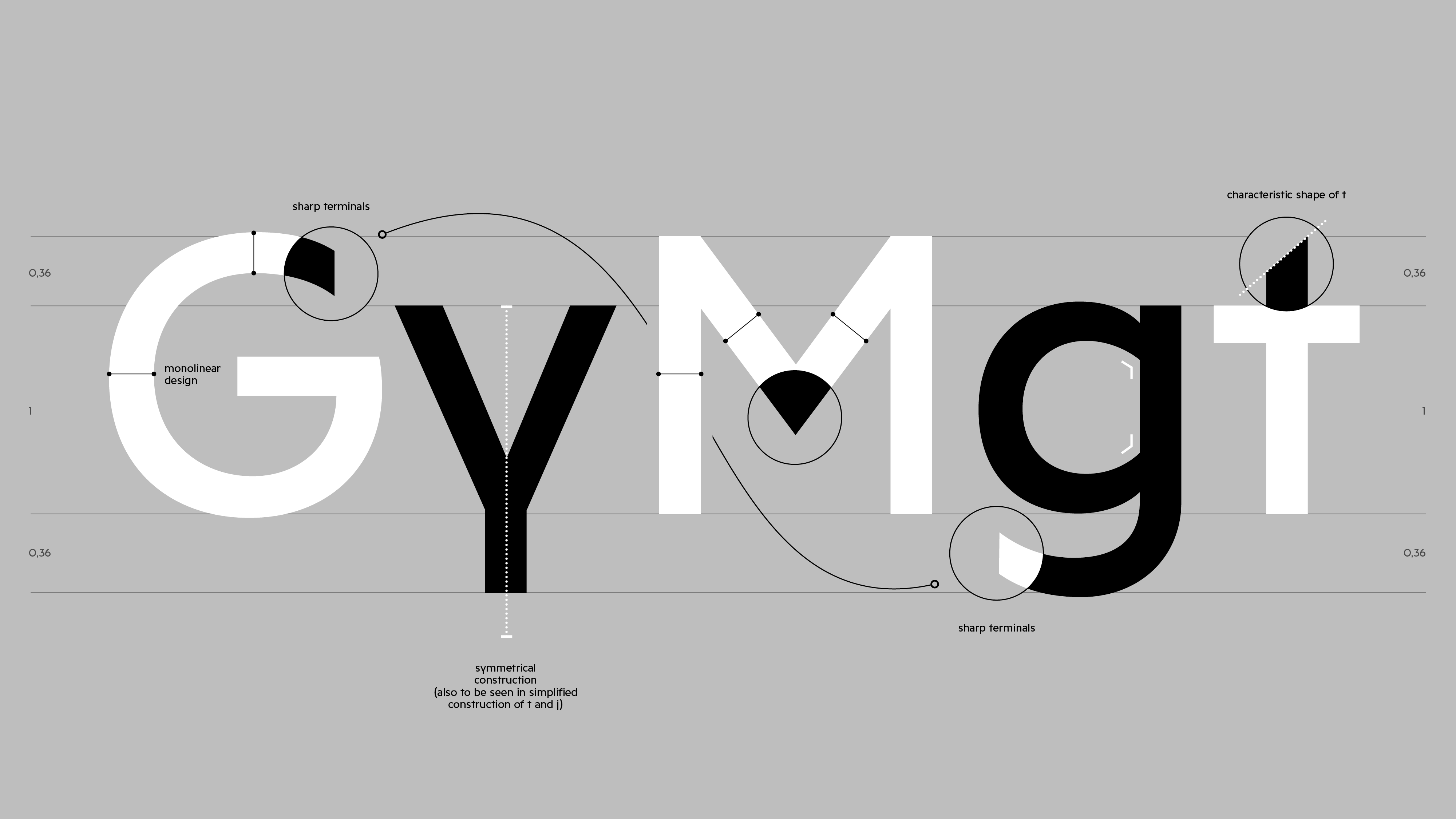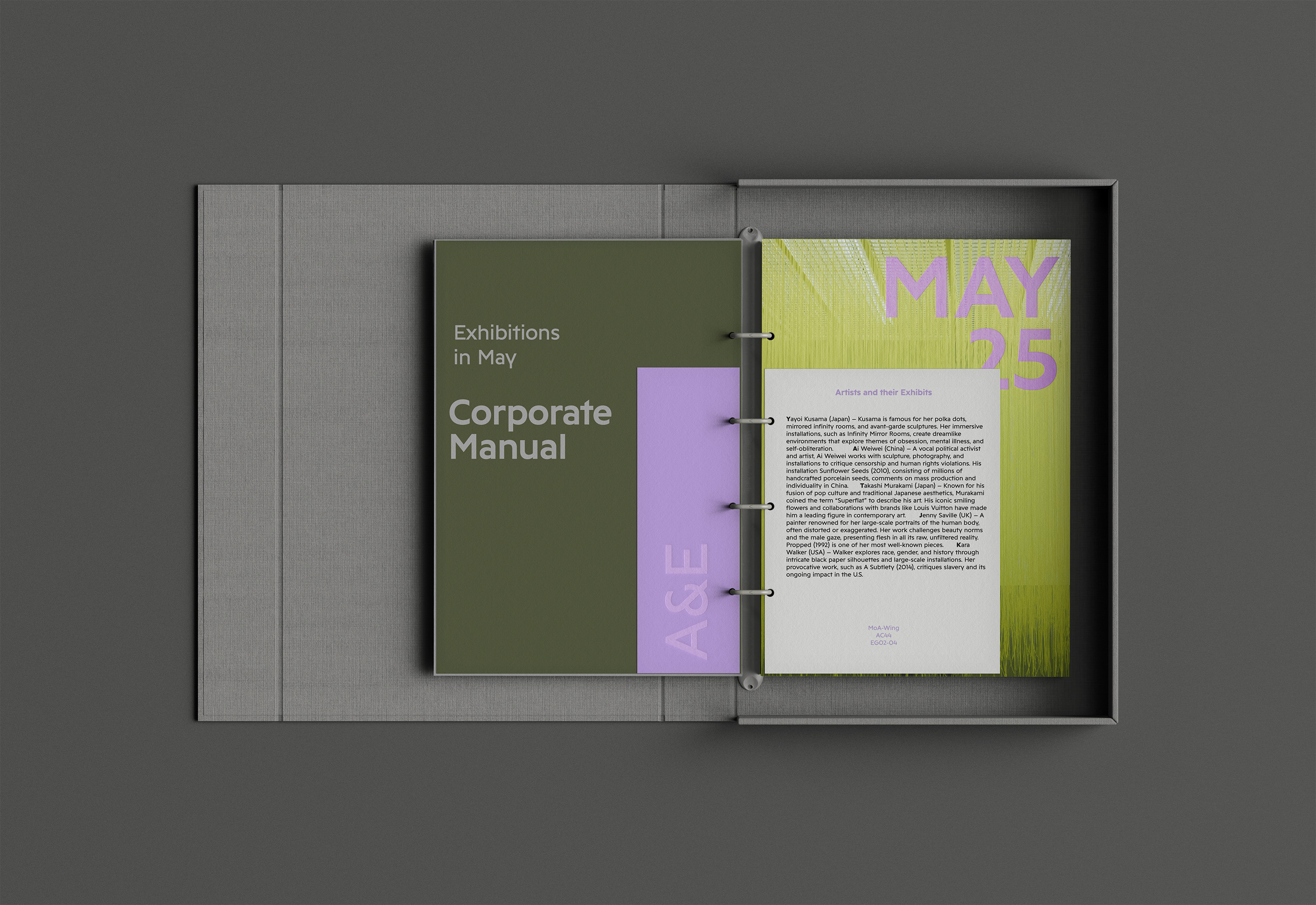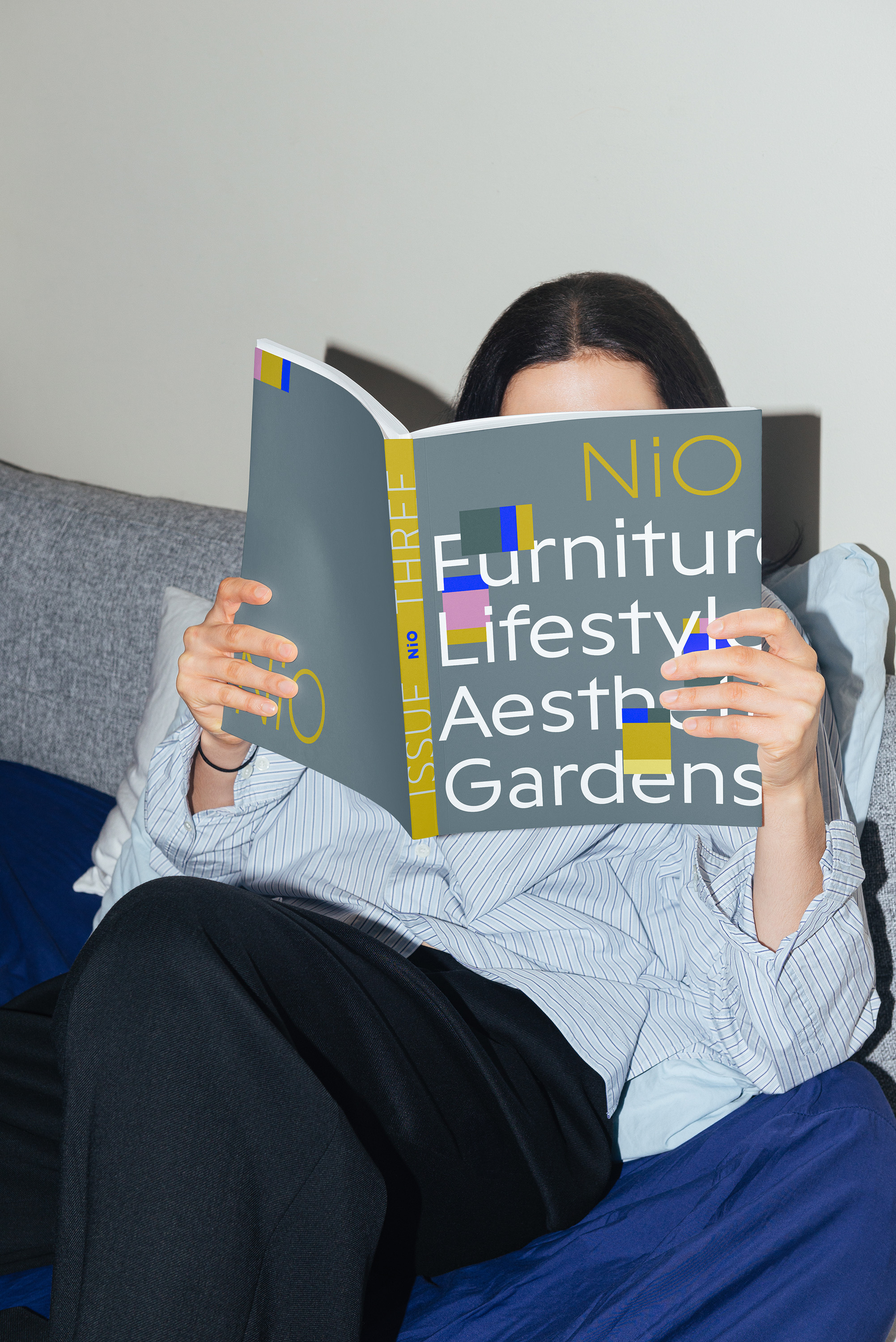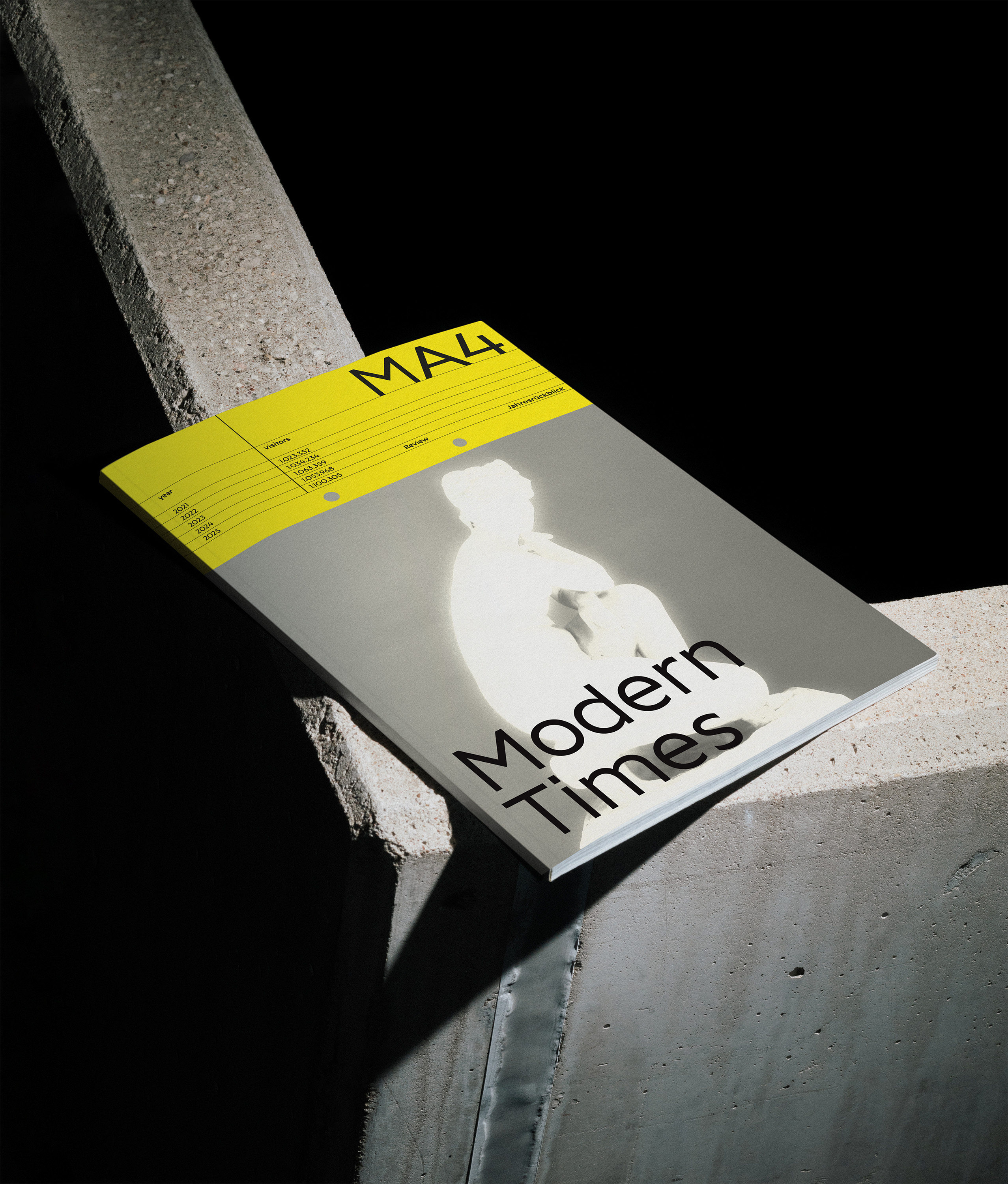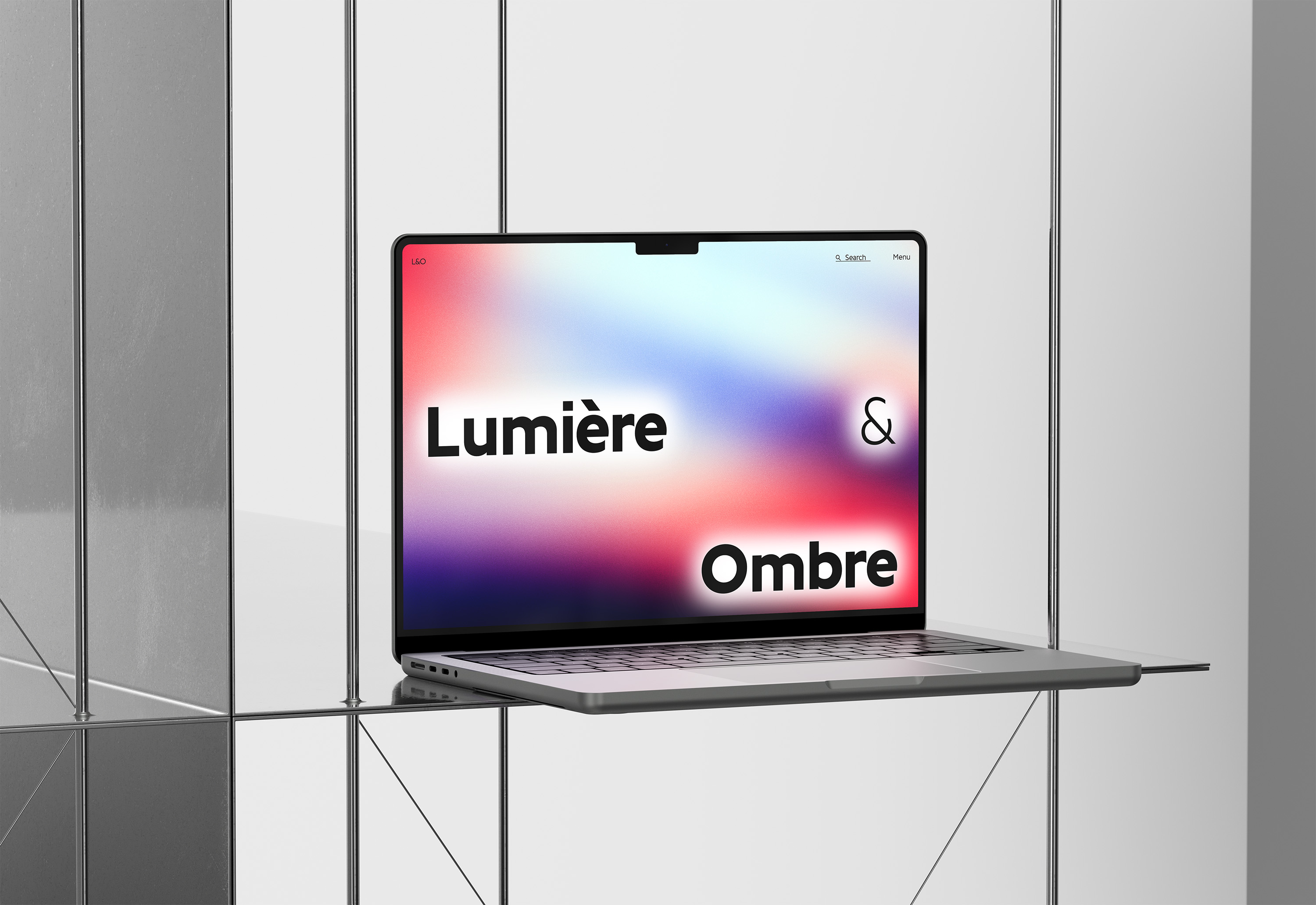
Golt is a contemporary sans serif typeface designed for clarity, character, and versatility. Rooted in the visual culture of Berlin’s metro and street signage, Golt reflects the functional clarity and typographic discipline that define the German design tradition.
The typeface combines a wide, rounded construction with sharply defined vertical strokes, resulting in a balanced texture that performs well across both digital and print environments. Distinctive features—such as the open G, angled t, and characteristic y—add subtle identity without compromising usability. Several letterforms, including the contextual alternates for the German “Eszett” (ß), pay direct homage to Berlin’s street sign typefaces from the early 20th century as well as Andreas Frohloff’s redesign in the 1990s.
Golt is ideal for brands that value typographic integrity and require a sans serif that feels contemporary yet considered. Whether used in headlines, wayfinding, or body text, Golt delivers a confident and cohesive presence—perfect for brands seeking a modern typeface with substance.